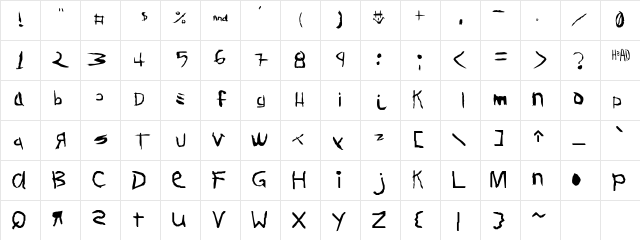
DearTeacher-Normal Regular
Design Context for DearTeacher-Normal
DearTeacher-Normal is a composed and adaptable typeface that performs quietly and consistently across a wide range of design contexts.